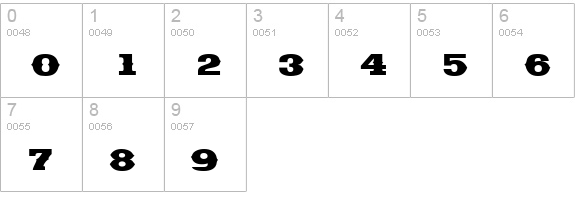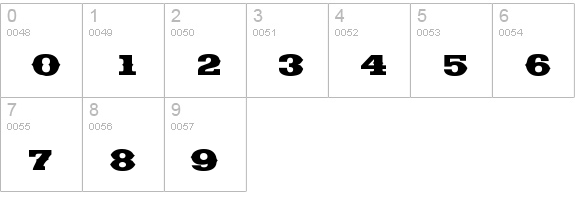
Saddlebag Black Font Details
Saddlebag Black is a maximum-weight, dramatic variant in the Saddlebag typeface family \xE2\x80\x94 well suited to maximum-impact headlines, posters, and packaging.
Saddlebag Black font is a bold and striking typeface that exudes power and sophistication. Its distinct angular lines and sharp edges make it perfect for creating eye-catching headlines, logos, and branding materials. This font is designed to make a statement, commanding attention with its strong presence and elegant style. Its thick strokes and wide letter spacing create a sense of boldness and authority, while still maintaining a sense of grace and refinement. Saddlebag Black font is freely available to download at FontsMarket.com, making it accessible to designers and creatives who are looking to add a touch of boldness and uniqueness to their projects. With its versatility and timeless appeal, this font can be used in various design applications, from print to digital media. Whether you're designing a striking poster, a captivating website, or a powerful logo, Saddlebag Black font is sure to enhance your design and leave a lasting impression on your audience. Its sleek and modern aesthetic is perfect for any project that requires a touch of sophistication and visual impact. Download Saddlebag Black font for free at FontsMarket.com and experience the versatility and power that this font has to offer. Elevate your designs and make a bold statement with this stylish and captivating typeface.